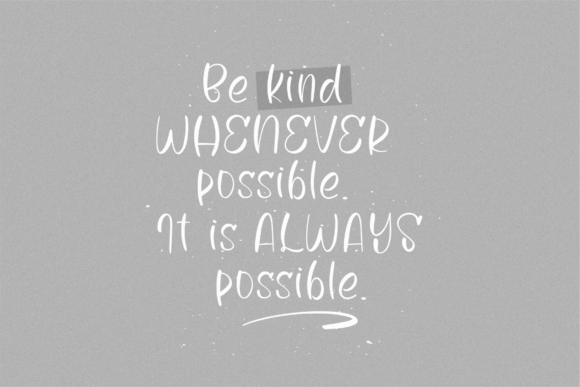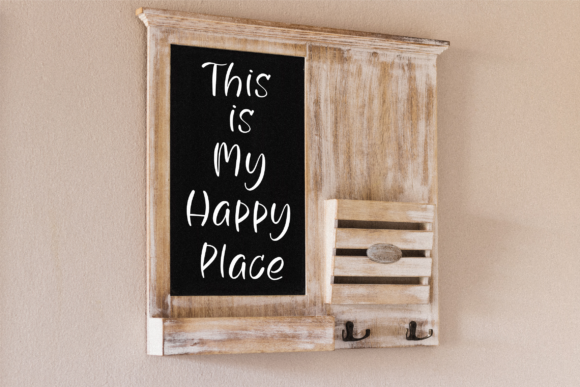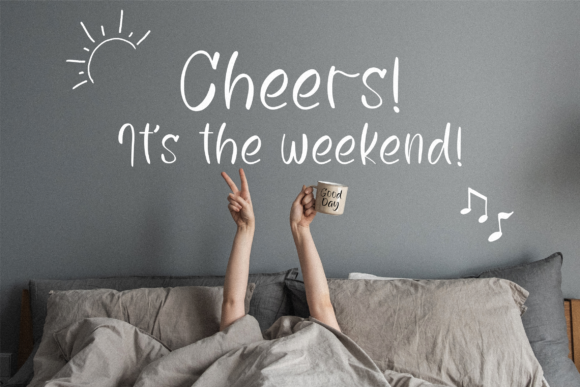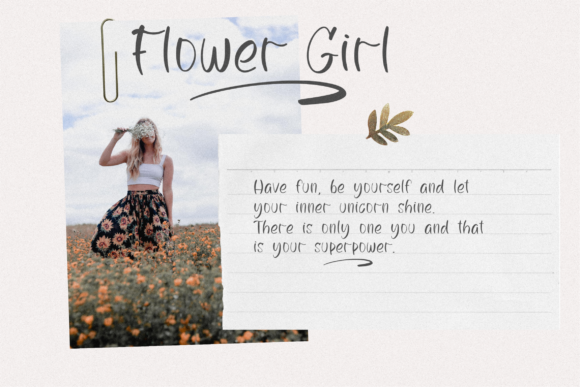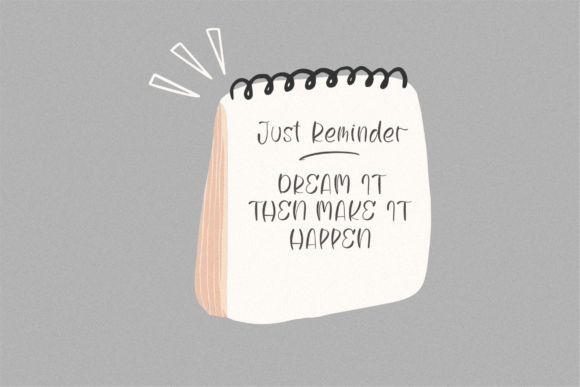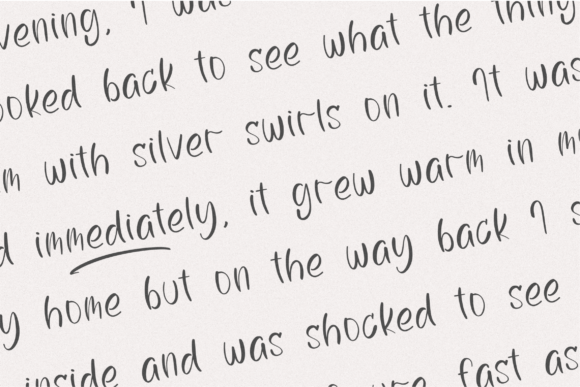
Introduction to Bubble Peanut Font
Bubble Peanut is a flowing handwritten font, masterfully designed to become a true favorite.
Bubble Peanut Font offers exceptional quality and versatility, making it a valuable addition to your design toolkit. Whether you’re creating for personal projects or commercial use, Bubble Peanut Font delivers professional results.